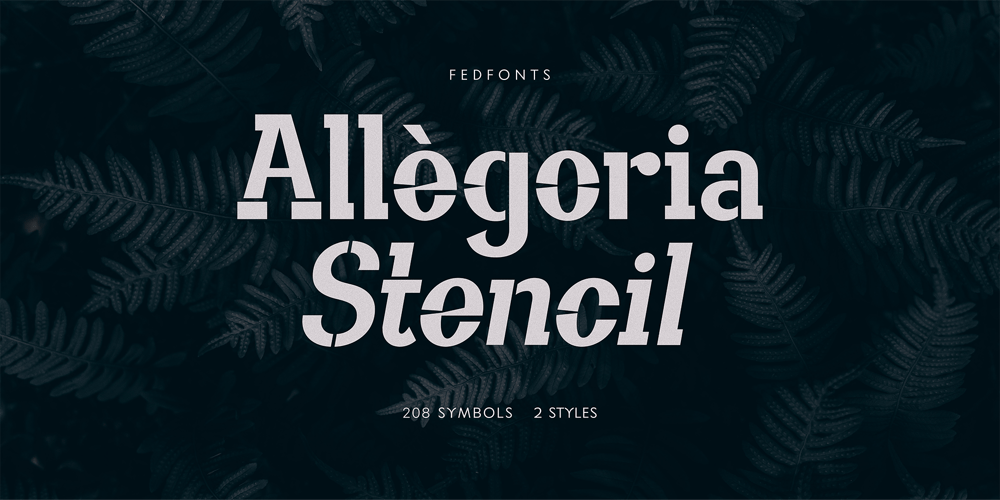
Allegoria Font Family was designed by Fed Tunik and published by Fed Tunik. Allegoria contains 2 styles and family package options. The font consists of two styles, includes more than 200 essential symbols that can satisfy any task. Suitable for banner designs, book covers, magazine headlines, website titles, and logo design. Thank you for your purchase!